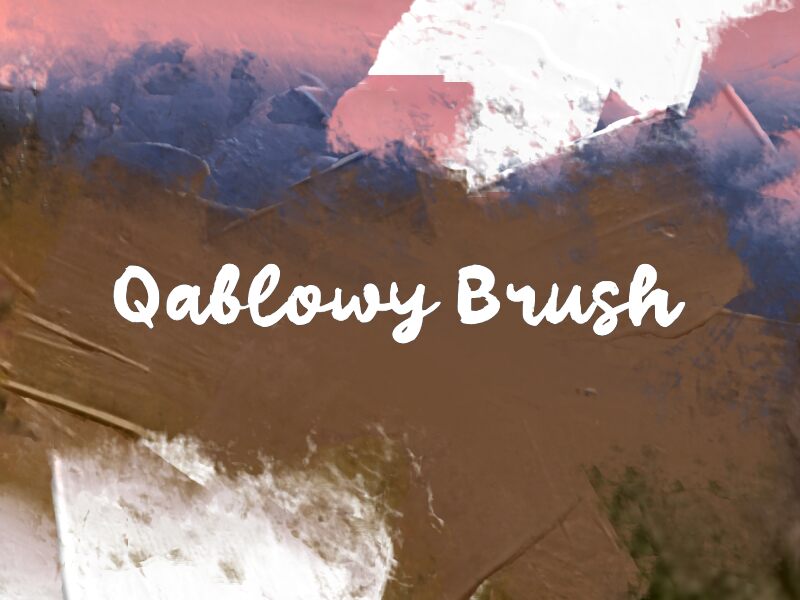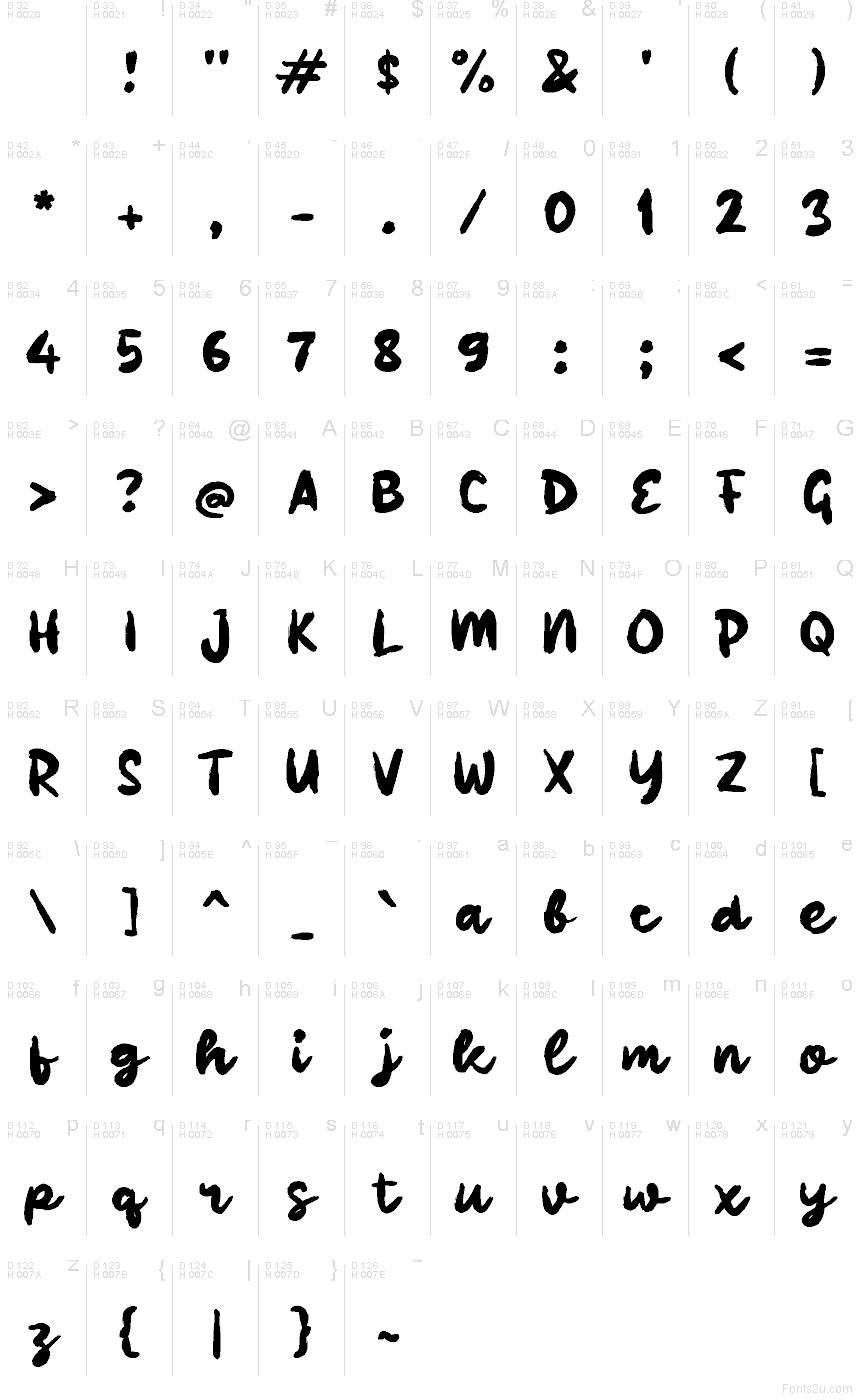
Qablowy Brush
Qablowy Brush font by wep is a free brush script typeface with a bold, inky presence and easygoing rhythm. Its connected strokes feel like they were painted in one confident sweep, with chunky curves and slightly rough edges that keep it warm and human. The letters hug each other closely, creating a cozy, hand-lettered line that reads clearly even at smaller sizes while still feeling lush and expressive up close.
Using Qablowy Brush, you can bring a friendly, handmade vibe to logo marks, café menus, product packaging, social media posts, event flyers, and merch designs. This free font shines on bold titles and short phrases where its thick, juicy texture can really show. For a polished look, pair Qablowy Brush with a clean geometric sans for body text and let the brush script handle the headlines and key accents.